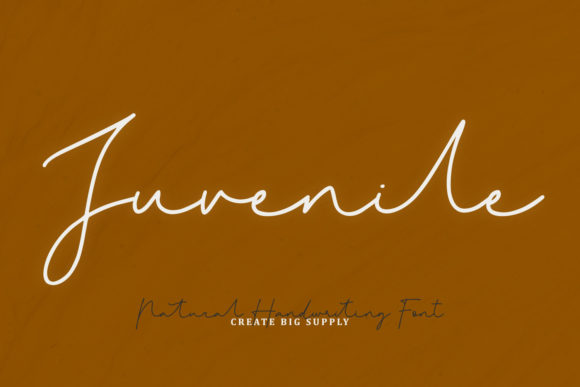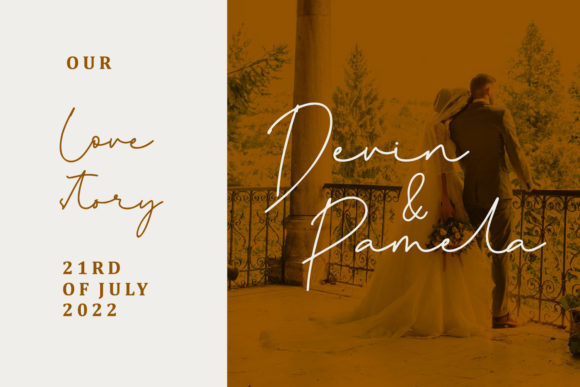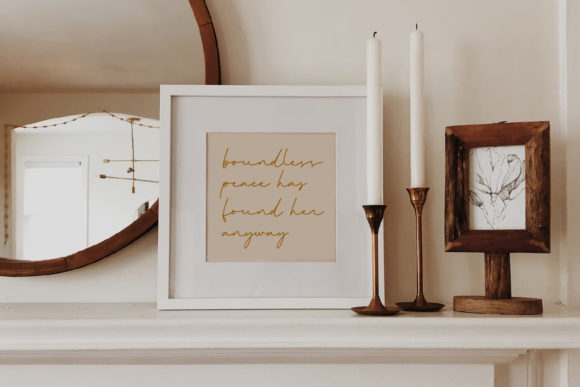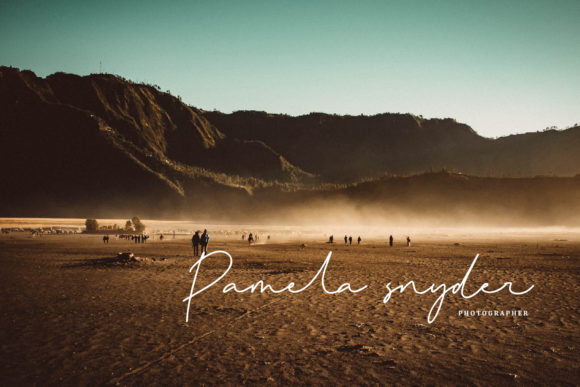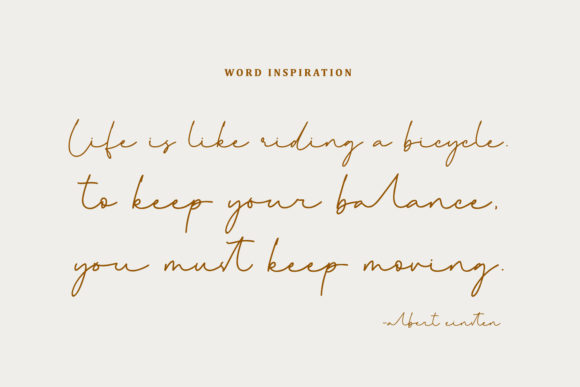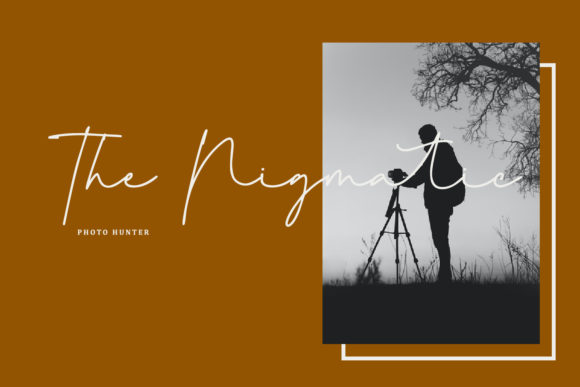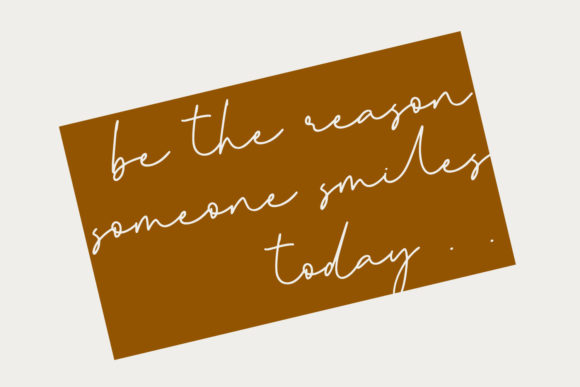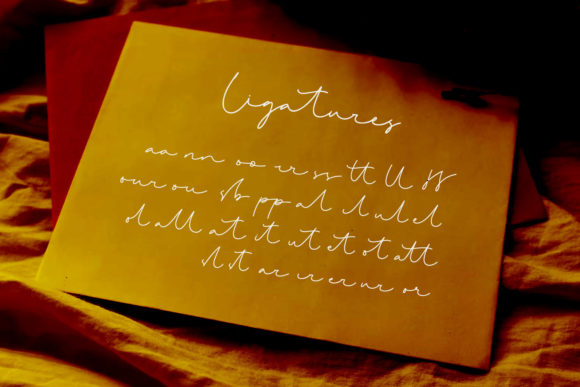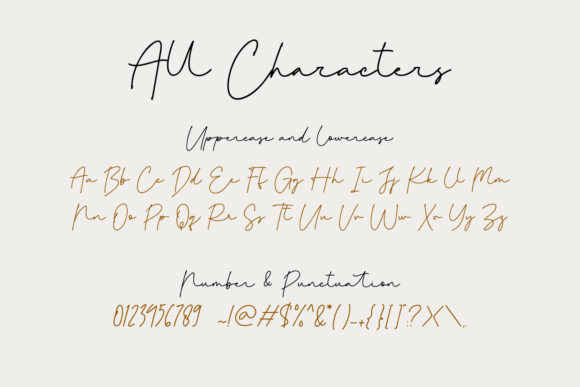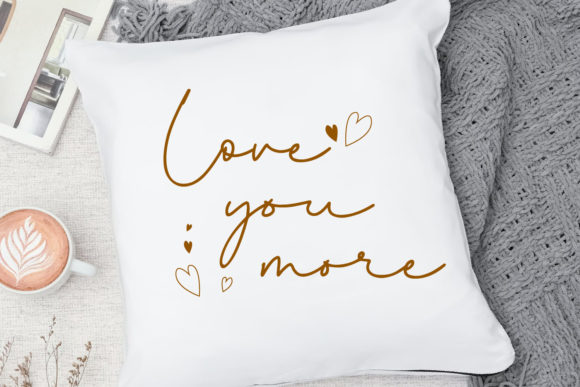
Juvenile Font
About Juvenile Font
Juvenile is a lovely and timeless handwritten font. It is the best choice for creating eye catching logos, branding and quotes. This font is PUA encoded which means you can access all of the glyphs and swashes with ease!